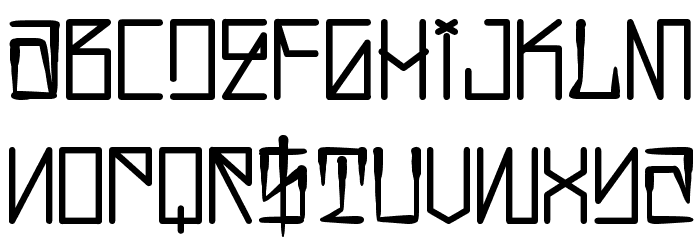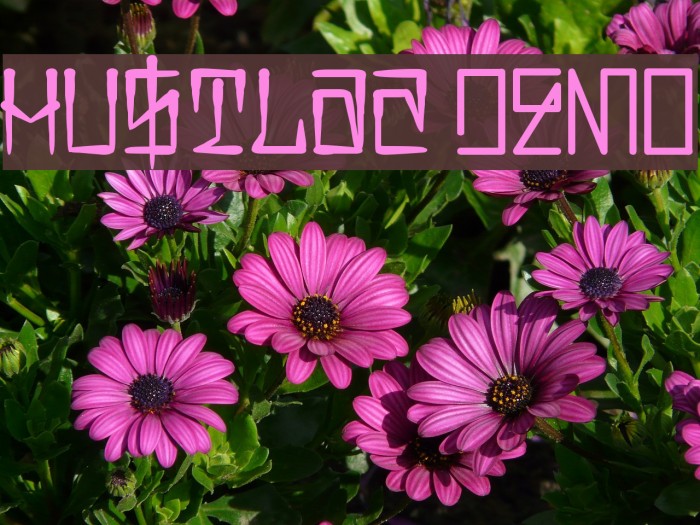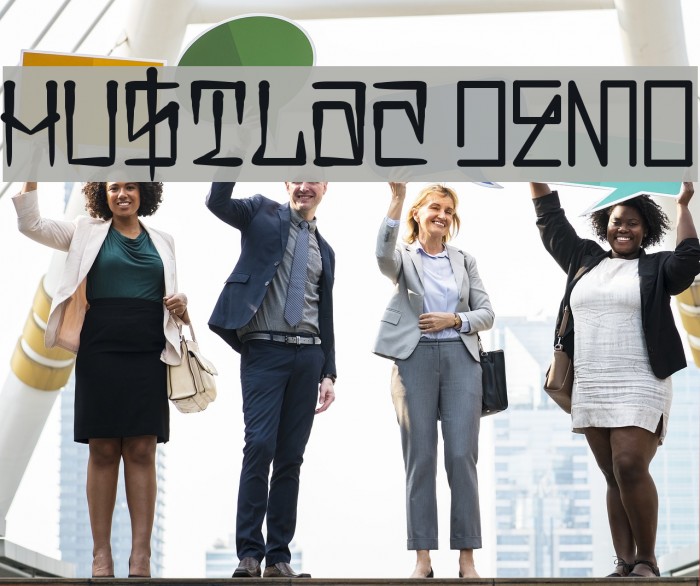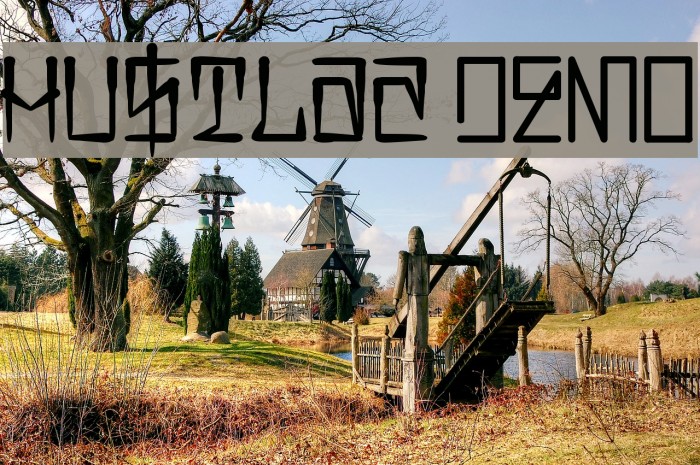
Hustlaz Demo Font
This font features a bold and edgy design with a distinct urban flair. The characters are constructed with angular lines and sharp edges, giving it a modern and rebellious appearance. The uppercase and lowercase letters maintain a consistent style, with unique geometric shapes that create a cohesive look. The numbers and special characters are equally stylized, ensuring uniformity across all glyphs. This font's design is reminiscent of graffiti or street art, making it ideal for projects that require a bold and unconventional aesthetic.
A bold, edgy font with angular lines and a modern, rebellious style.
- Proposed Projects: Ideal for streetwear branding, music album covers, urban-themed posters, and graffiti-inspired designs.